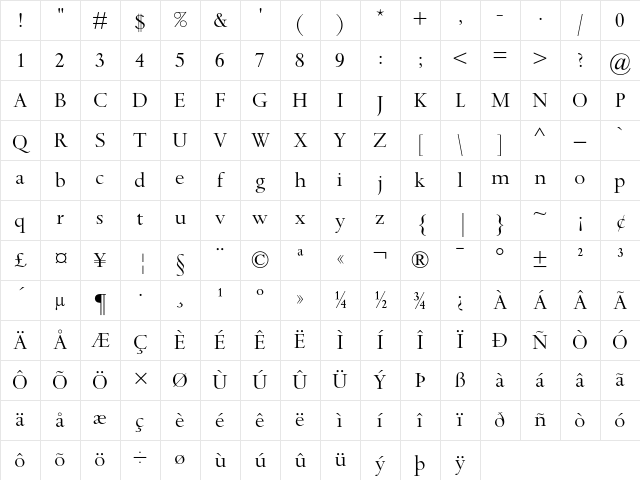
Spectrum MT Regular
Complete Spectrum MT Regular glyph index. Displaying only characters natively supported by Spectrum MT Regular font.
Design Context for Spectrum MT
Spectrum MT is a composed and adaptable typeface that performs quietly and consistently across a wide range of design contexts.
Pro Tip: Use Spectrum MT in both headline and body roles to test its range before committing to a single application.